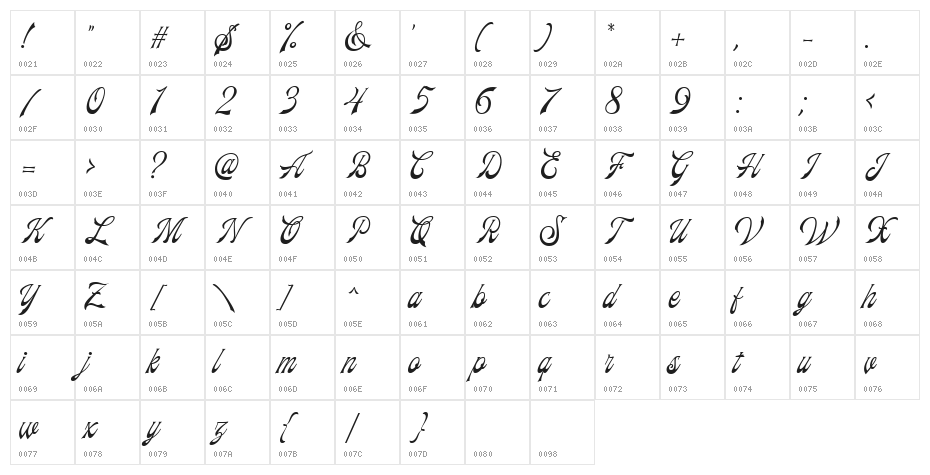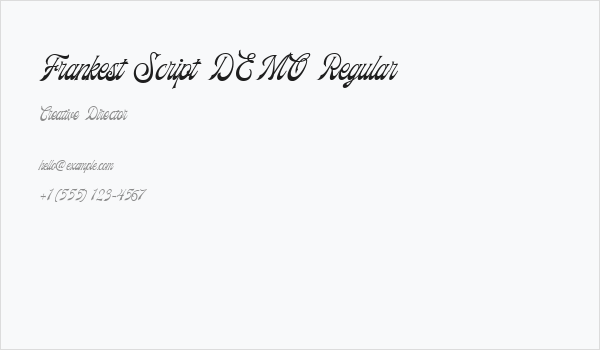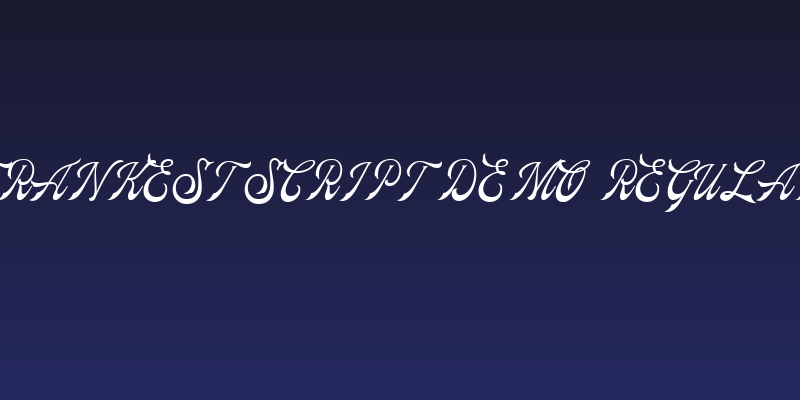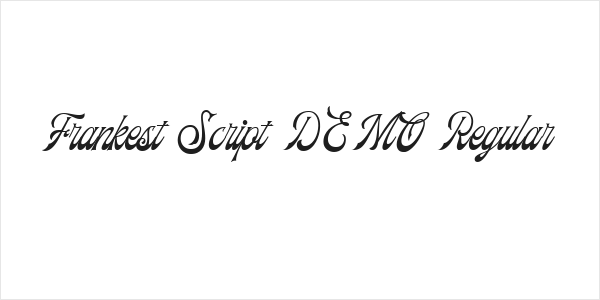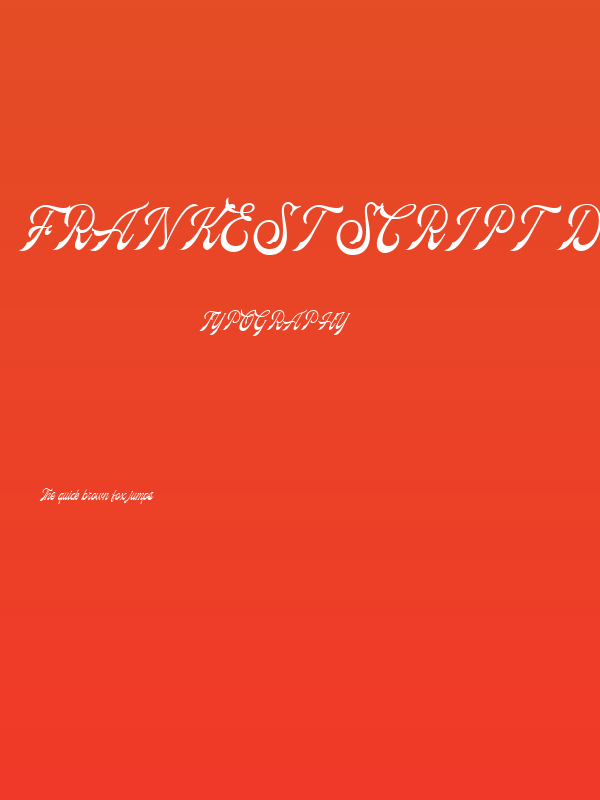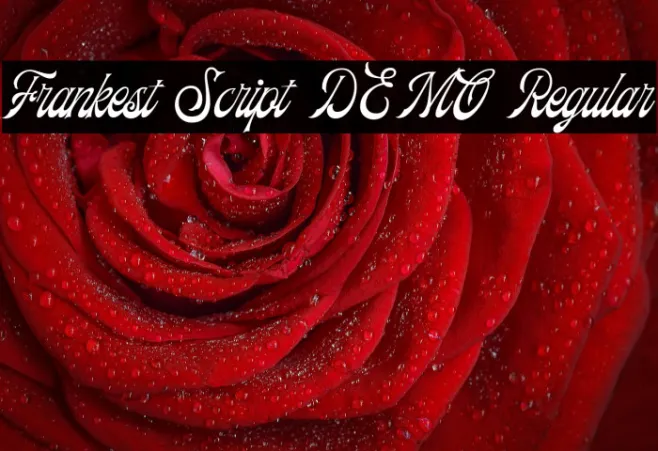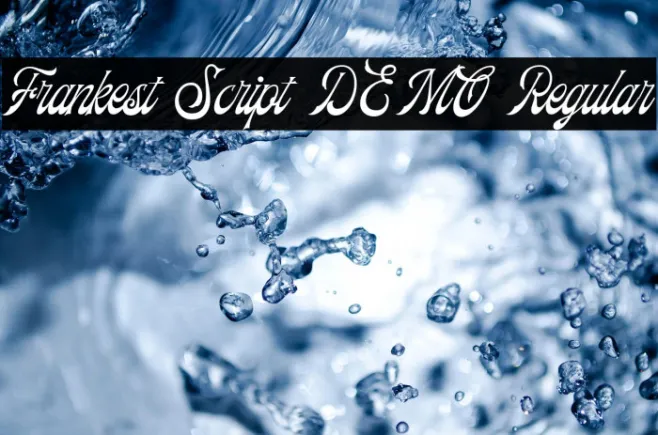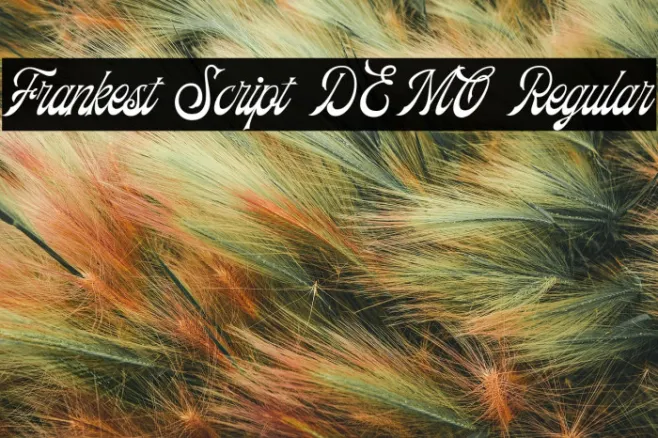
Frankest Script DEMO Regular Font
Frankest Script DEMO Regular Description
This font exudes elegance and sophistication with its flowing, cursive script style. The characters are intricately designed with sweeping curves and delicate flourishes, giving it a dynamic and graceful appearance. The uppercase letters are bold and prominent, while the lowercase letters maintain a consistent fluidity, enhancing readability. The numerals and special characters are crafted with the same attention to detail, ensuring a cohesive look across all text. This font is perfect for projects that require a touch of class and refinement.
| Proposed Projects | Ideal for wedding invitations, luxury branding, elegant packaging, and high-end editorial design. |